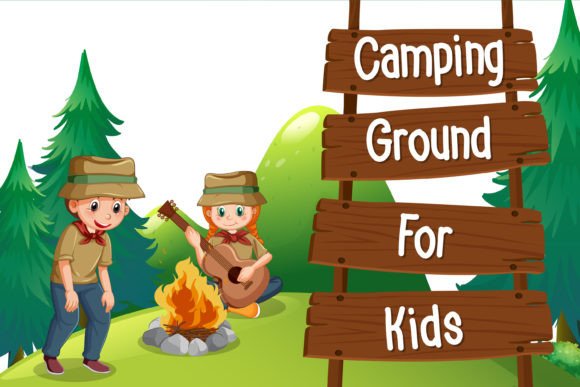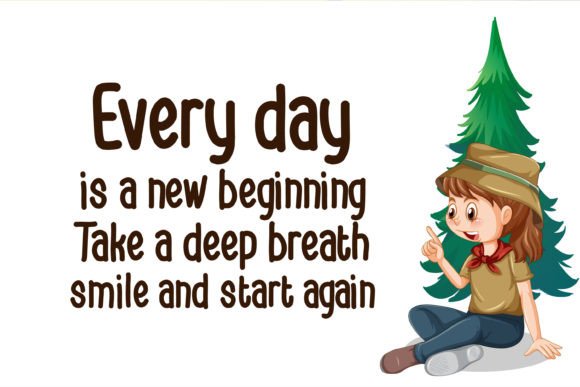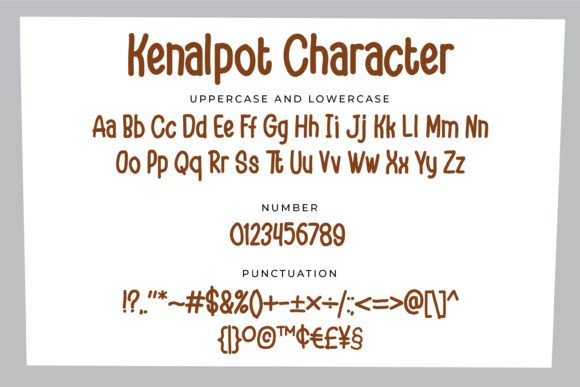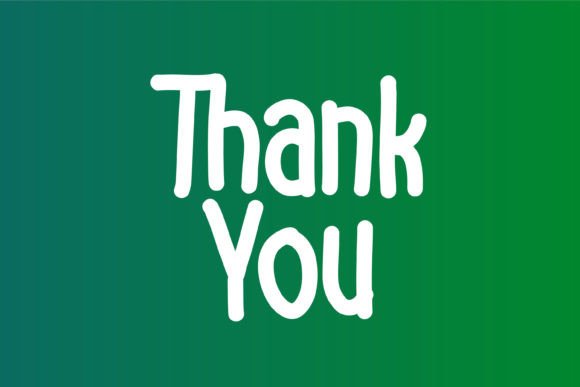
Introduction to Kenalpot Font
Remember that moment when you stumbled upon the perfect font for your creative project? The one that made all the difference between a good design and a great one? For designers, finding that special font can be a game-changer. It’s like stumbling upon a hidden treasure that adds an extra layer of personality to your work. And that’s exactly what we’re excited to introduce you to – the vibrant and playful Kenalpot Font.
With its unique loops and flair, Kenalpot Font is a high-quality design resource that’s perfect for adding a personal touch to your branding, packaging, invitations, and social media posts. Its transparent background makes it easy to layer with other design elements, giving you endless creative possibilities. And the best part? You can download it for free, making it an invaluable resource for any designer looking to elevate their work.
Key Features of Kenalpot Font
- High-quality font design for creative projects, perfect for designers and artists
- Transparent background, allowing for seamless integration with any design
- Unique characteristics include a modern and elegant aesthetic, making it ideal for a wide range of creative projects
Honest Review: Kenalpot Font
I recently had the chance to explore the Kenalpot Font, and I must say it’s a great addition to any designer’s toolkit. The font offers a high-quality, modern aesthetic that’s perfect for a wide range of creative projects.
What I like about Kenalpot Font is its versatility. It comes in a variety of weights and styles, making it easy to find the perfect fit for your project. The transparent background is also a nice touch, allowing for seamless integration with your design.
- ✨ High-quality, modern aesthetic
- ✨ Versatile, with various weights and styles
One potential limitation of Kenalpot Font is its limited character set. While it’s still a great resource, it may not be suitable for projects that require a full range of characters.
Overall, I’m impressed with Kenalpot Font. It’s a great option for designers looking for a high-quality, free font to add to their creative projects. With its versatility and modern aesthetic, it’s definitely worth checking out.
⚠️ Limited character set may be a concern for some users.
Tips for Getting the Most Out of Kenalpot Font
To get the most out of Kenalpot Font, experiment with different font sizes, colors, and styles to find the perfect look for your design. You can also use the font in combination with other design elements, such as images and graphics, to create a unique and eye-catching design.
Kenalpot Font is commonly used in creative projects, such as graphic design, digital art, and typography. It’s also a great font for presentations, documents, and websites that require a high-quality, professional look.
Yes, the Kenalpot Font has a transparent background, making it perfect for use in creative projects that require a high level of design flexibility. The font’s transparent background allows you to easily combine it with other design elements and backgrounds.
Can I customize the Kenalpot Font?
Yes, the Kenalpot Font is fully editable and customizable. You can modify the font’s design, size, and color to suit your specific design needs. Additionally, the font is compatible with most popular design software, including Adobe Photoshop and Illustrator.